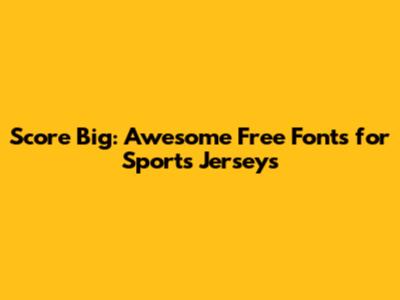
- Impact: A strong, heavy font that commands attention. Great for football and hockey jerseys. This is one of the most used fonts when it comes to jersey design. This is because of its simplicity and bold appearance.
- Bebas Neue: A clean, condensed font that's versatile and modern. Works well for basketball and soccer jerseys. This font is very popular, used in a variety of designs, and very appealing to the eye.
- Roboto Black: A versatile font with a strong presence. Suitable for various sports.
- Pacifico: A playful, casual script font that's great for a vintage or retro feel. It's very simple to read, making it easy to identify. Perfect for baseball jerseys.
- Brush Script MT: A classic, handwritten-style font that adds a personal touch. Ideal for a more customized jersey.
- Dancing Script: A flowing, elegant script font for a touch of class. This is perfect for a clean jersey design.
- Changa: A bold, modern font with a distinctive look. Good for a unique and stylish design.
- Anton: A condensed, uppercase font that's impactful and eye-catching.
- Contrast is Key: Ensure good contrast between the font color and the jersey background. Choose colors that complement each other and make the text easy to read.
- Size Matters: Make sure the font size is appropriate for the jersey. Player names and numbers should be easily visible. A good rule of thumb is to make sure your design is easily readable from a distance.
- Spacing and Alignment: Pay attention to spacing between letters and lines. Proper alignment makes the design look clean and professional. Poorly spaced designs can make the jersey look sloppy.
- Color Palette: Use a limited color palette. Too many colors can make the design look cluttered. Stick to a few key colors that represent your team.
Hey sports fanatics and design enthusiasts! Ever wondered how to create a killer sports jersey without breaking the bank? Well, you're in luck, because we're diving deep into the world of IIIFree fonts – those fantastic, royalty-free typefaces that can transform your jersey designs from zero to hero! Getting the right font can make or break a design, so let's explore some of the best free font options, tips for choosing the perfect font, and how to use them effectively. Get ready to level up your jersey game, guys!
The Power of Typography in Sports Jersey Design
Why Fonts Matter
Okay, let's be real: why should we care so much about fonts? Think about it: a sports jersey is more than just fabric; it's a statement. It's about identity, team spirit, and making a visual impact. The font you choose is a huge part of that. It's the voice of your team, the visual representation of your brand. A well-chosen font can capture the essence of your team's personality, whether you're aiming for a classic, bold, or modern look. It conveys the attitude, the history, and the character of the team. A bad font choice, on the other hand, can lead to a jersey that looks dated, unprofessional, or just plain cringey. So, choosing the right font is about more than aesthetics; it's about communicating your team's story effectively. It has the ability to attract potential sponsors. It has the potential to become a collector's item in the future. Now, don't you want to choose the right font?
Consider the iconic jerseys of the Chicago Bulls or the New York Yankees. Their fonts are instantly recognizable and synonymous with their brands. Those fonts, along with their associated colors and logos, evoke feelings of nostalgia and team pride in their fans. That is how the font can evoke such a strong feeling. That is the true power that fonts hold, so you must choose wisely. So, the right font is a key element of your branding. It's about creating a visual identity that resonates with fans and leaves a lasting impression. From the bold, block letters of a football jersey to the sleek, modern look of a hockey jersey, the font is the first thing people are going to see. It is the core of design and the main key to an appealing jersey design.
The Impact of a Well-Designed Jersey
Think about how a well-designed jersey can impact a team's image and marketability. A great font can attract more fans and generate more revenue through merchandise sales. Remember, a sports jersey isn't just clothing; it's a piece of art, a symbol of identity, and a powerful marketing tool. The right font can make a huge difference in how the jersey is perceived, both on and off the field. A visually appealing jersey can make the difference between a team that is perceived as legitimate or one perceived as illegitimate. Now, that's something to think about, isn't it? Let's go over this once more. The right font can increase sales, attract more fans, and create a stronger team identity. Not only that, but a well-designed jersey can also boost team morale and give players a sense of pride and ownership. So, the font you choose can influence the entire perception of the team. A top-notch design can even attract potential sponsors. So, choosing a great font can increase your team's income.
Design Best Practices